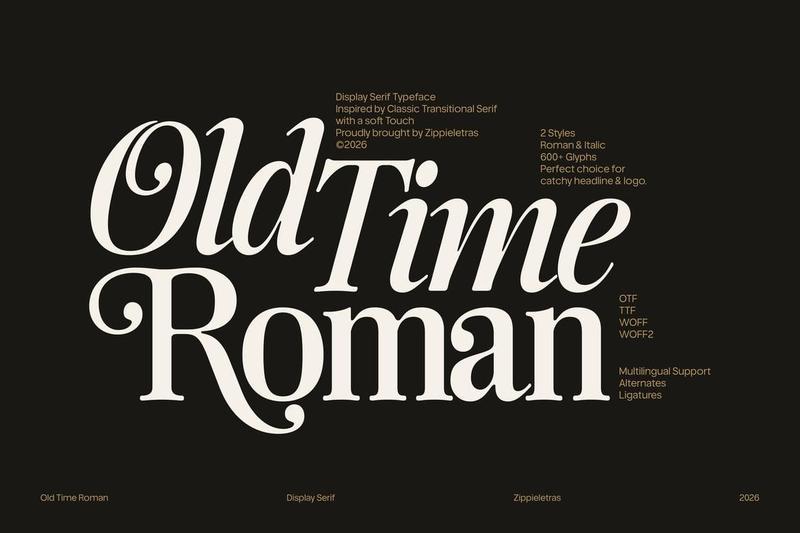
Old Time Roman is a sophisticated transitional display serif typeface designed to bring timeless elegance and humanist warmth into modern branding. Inspired by the enduring beauty of classic serif typography, it balances refined contrast, graceful proportions, and soft details to create a premium yet approachable typographic voice.
Combining the heritage of traditional book typography with contemporary branding needs, Old Time Roman performs beautifully across logos, editorial layouts, websites, signage, posters, and luxury brand identity systems. Its carefully crafted letterforms deliver a sense of confidence and refinement, making every word feel established, trustworthy, and memorable.
The family includes both Roman and Italic styles, The Italic cuts with particular distinction: informed by the fluid calligraphic italic tradition, its letterforms move with natural ease and organic rhythm. Combined with a curated set of classic ligatures, the Italic style elevates typesetting into something closer to craft.
For those who want to push further into ornamentation, Stylistic Set 01 (SS01) unlocks swash-inspired uppercase alternates for both Roman and Italic drawing from the grand tradition of classic serif swash capitals to add flourish, personality, and a sense of occasion.
**Feels Like:**
* Classic book typography reimagined for modern brands
* Luxury editorial spreads and magazine covers
* Heritage-inspired branding with contemporary refinement
* Elegant hotel, fashion, Sports, and lifestyle identities
* Timeless typography with a human touch
Best For:
* Luxury and premium brand identity
* Editorial design and magazine layouts
* Logo design and elegant wordmarks
* Website typography and digital branding
* Signage systems and environmental graphics
* Posters, headlines, and premium packaging
Features:
* Standard Ligatures
* Discrectionary Ligature
* Swash Alternates